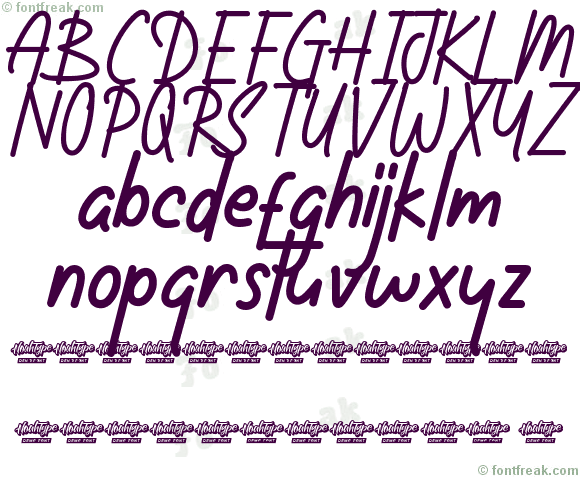
Harella Demo
Harella Demo, crafted by Noah Type, is a striking script font that exudes elegance and personality. With its fluid curves and artistic flair, this font is perfect for those seeking a unique typographic solution. The Harella Demo font features moderate stroke weight with gentle contrast, providing a harmonious balance that enhances readability without sacrificing style. Its smooth connections and well-spaced characters contribute to a polished appearance, making it suitable for a variety of design applications.
This font excels in several specific use cases. It is particularly well-suited for wedding invitations, where its romantic and sophisticated style can add a personal touch to any celebration. Additionally, Harella Demo is ideal for restaurant menus, offering a warm and inviting feel that can enhance the dining experience. Graphic designers may find it effective for branding projects, as it communicates creativity and authenticity. Furthermore, content creators can utilize this font in social media graphics, making their posts stand out with its charming aesthetic.
The target audience for Harella Demo includes graphic designers, small business owners, and content creators looking for a versatile typeface that captures attention and conveys a sense of style. Whether you're designing a logo, crafting promotional materials, or creating digital content, this font can elevate your projects.
What truly sets Harella Demo apart is its ability to blend modern elegance with a touch of whimsy, making it a standout choice in the world of typography. For those interested in incorporating this captivating font into their work, the Harella Demo font free download offers an accessible opportunity to enhance any design project with its distinctive charm.